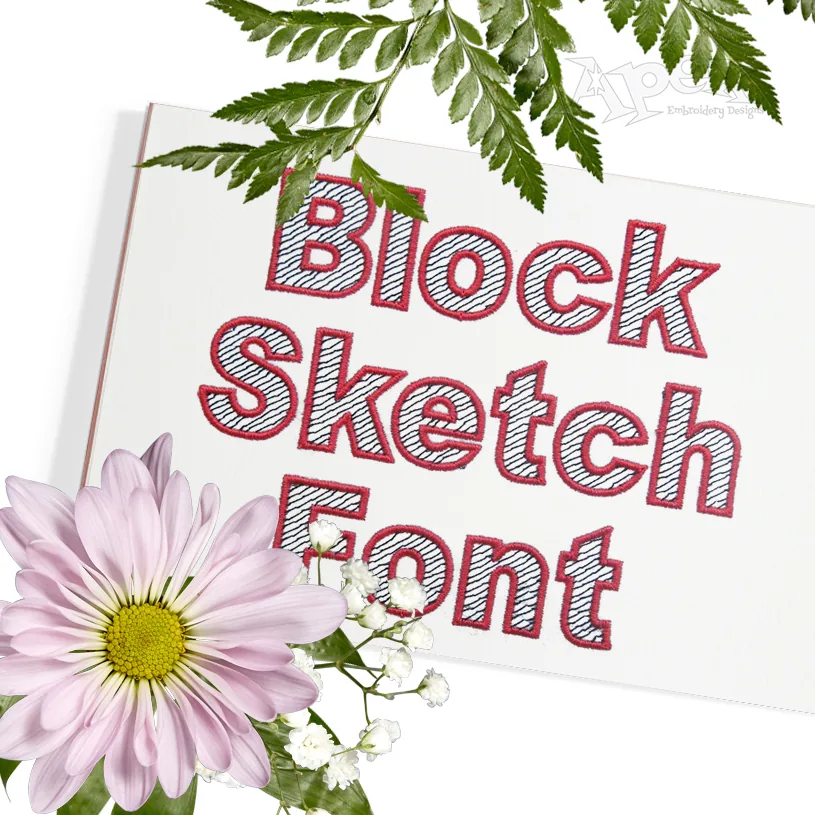
Block Sketch Embroidery Font
Born from the effortless charm of an architect’s notebook, the Block Sketch Embroidery Font redefines contemporary monogramming with an artfully relaxed touch. We envisioned a typeface that breaks away from rigid, bulletproof density in favor of light, breezy linework that moves organically with the fabric. Each letterform balances clean, confident geometry with the spontaneous soul of hand-hatched sketching, creating a sunlit, casual aesthetic that feels both modern and timeless. Whether stitched as an understated personal monogram or scaled up for an expressive garment statement, this font infuses every piece with artisanal ease and approachable luxury.
Project Ideas for Block Sketch Embroidery Font
The open, sketch-style fill makes this font an exceptional choice for materials where you desire high visual impact without the heavy stiffness of traditional fills:
- Heavy Washed Canvas Totes & Market Bags: Pair the 4-inch or 6-inch capitals across the center of natural cotton canvas for an effortlessly cool, coastal-ready tote.
- Bespoke Resort Wear & Relaxed Linens: Elevate open-collar linen shirts, poolside cabana towels, and unstructured summer jackets with light, breathable monograms.
- Curated Casual Sweatshirts: Create boutique-style casualwear by placing initials or college-style abbreviations across the chest of relaxed-fit vintage fleece.
- Modern Nursery Linens: Stitch a soft, gentle name across waffle-weave baby blankets or quilted pillows without creating stiff or abrasive embroidery patches.
- Personalized Gifting: Create rapid, memorable keepsakes on cosmetic pouches, zippered toiletry cases, and everyday travel gear that look stylishly bespoke.
Because the sketch technique produces minimal fabric pull, it accommodates a broad variety of hooping orientations and creative positions:
- Center Chest: Position the 4-inch or 6-inch letters squarely across the chest of hoodies, denim jackets, or oversized tees for an authentic streetwear mood.
- Pocket & Pocket-Above: Use the 2-inch sizing nestled cleanly directly above a shirt pocket or angled across the front pocket panel of utility aprons.
- Corner Diagonal: For plush bath towels, linen throws, and blanket corners, angle the monogram 45 degrees along the hemline to showcase the airy stitch texture.
- Lower Hem or Cuff: A singular 2-inch letter stitched slightly above the sleeve cuff delivers a quiet, high-end signature accent.
Block Sketch Embroidery Font Craft & Letterform Details
The beauty of this digitized sketch alphabet lies in its rhythm and precision. Rather than laying down heavy layers of underlay followed by compact satin columns, each character is sculpted with calculated, multi-directional sketch strokes. The contours are crisply defined with confident outer framing, while the interior fill remains deliberately open and gestural. This mindful stitch construction dramatically reduces overall stitch counts, meaning designs sew out rapidly and cleanly with almost zero puckering—even on delicate knits and soft linens. The letters drape naturally, maintaining the original hand and movement of your garment while celebrating the textured elegance of decorative thread.